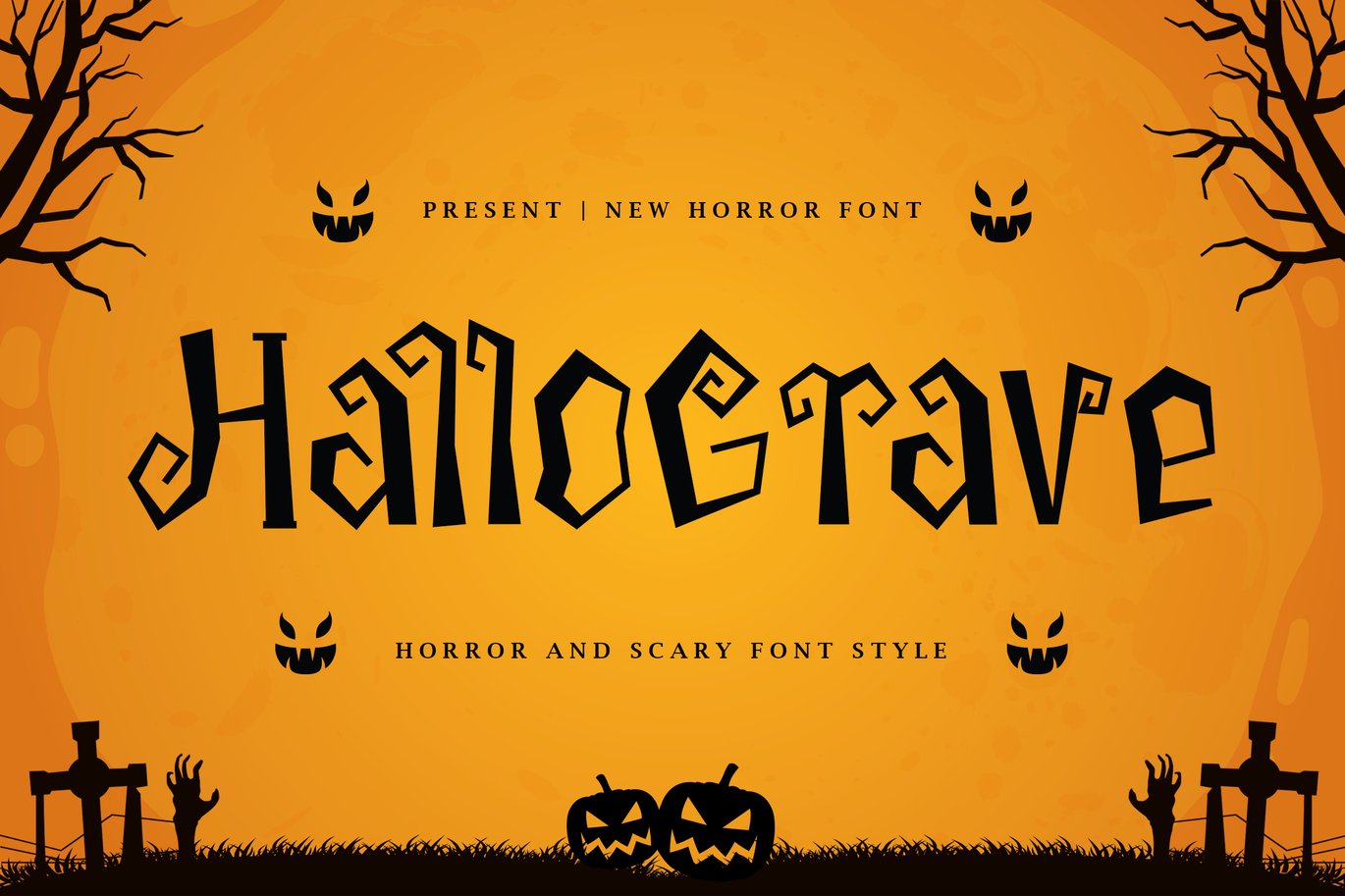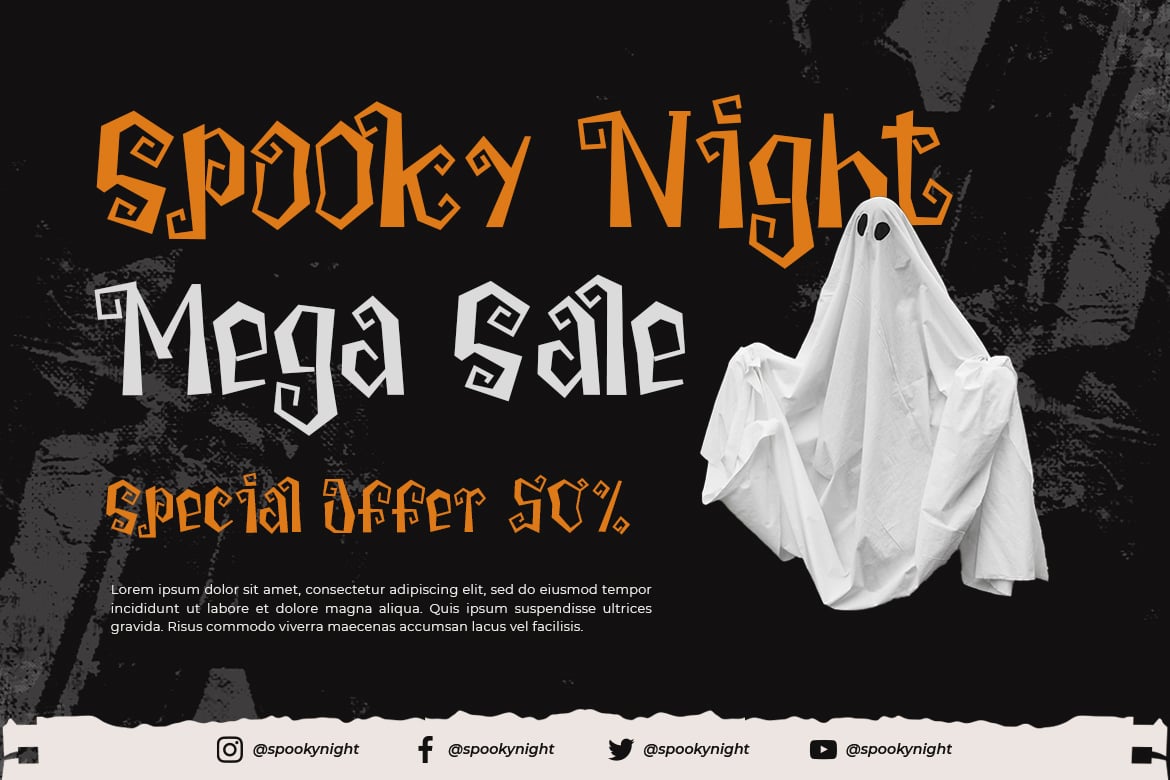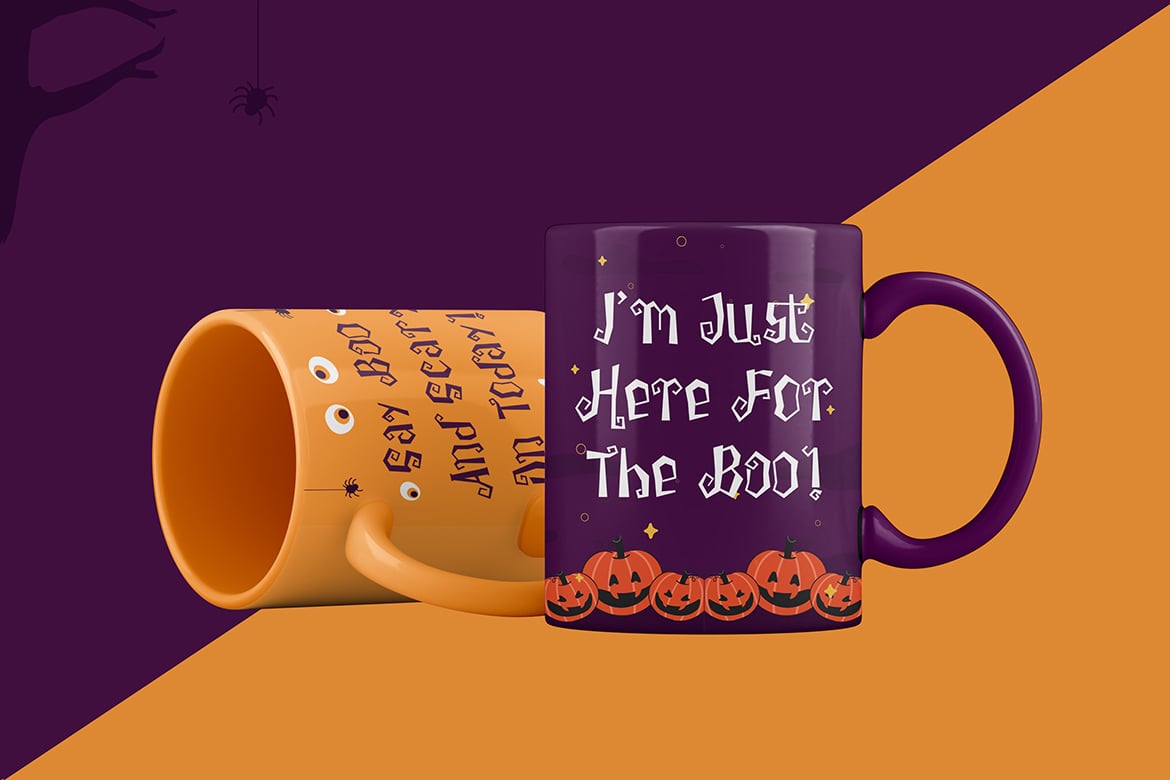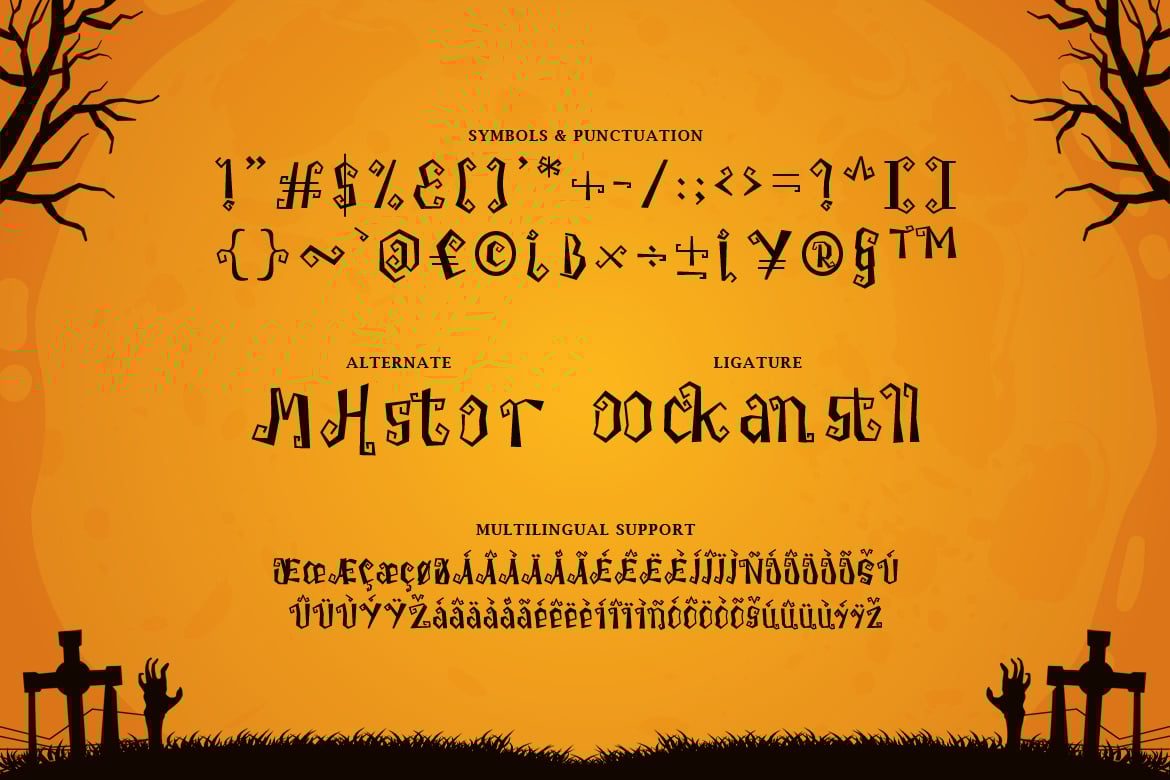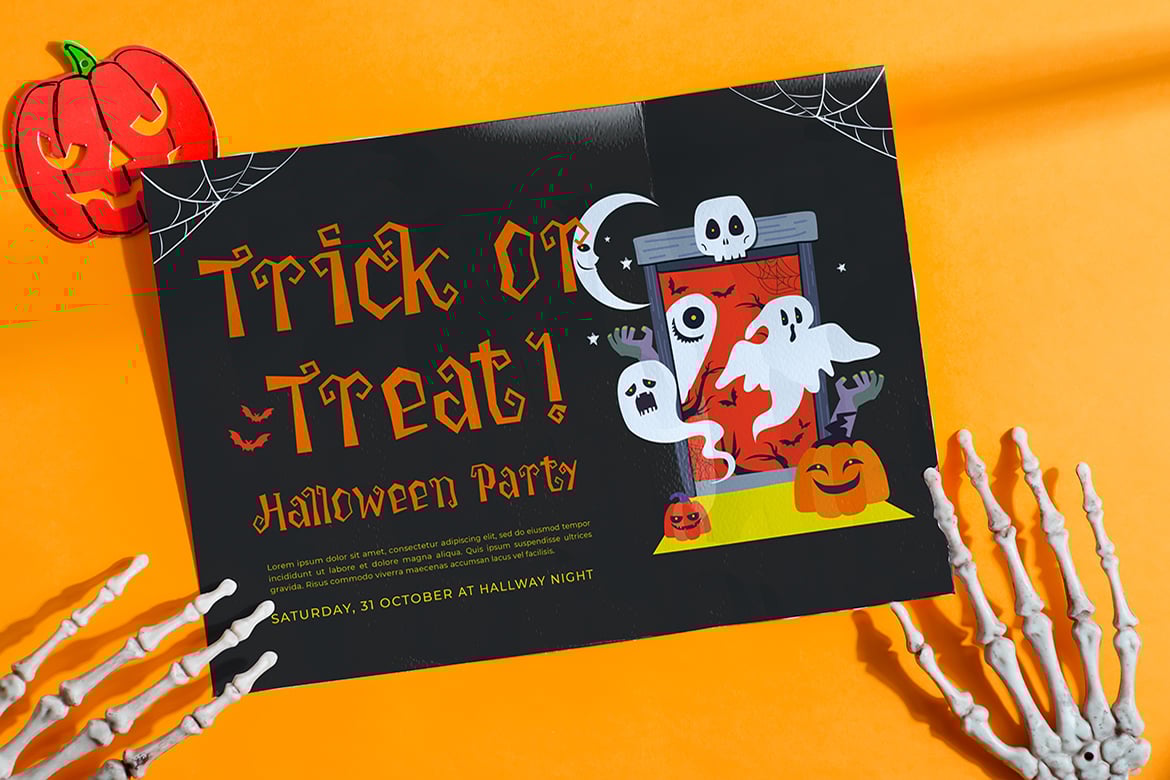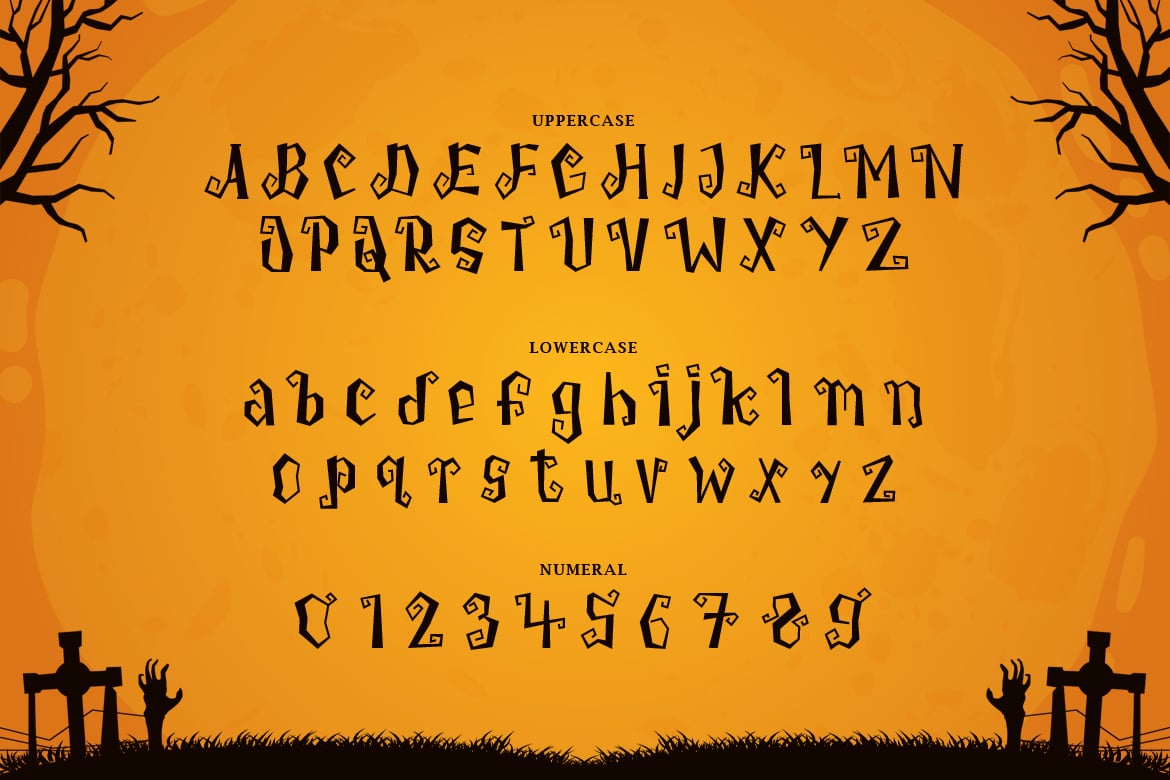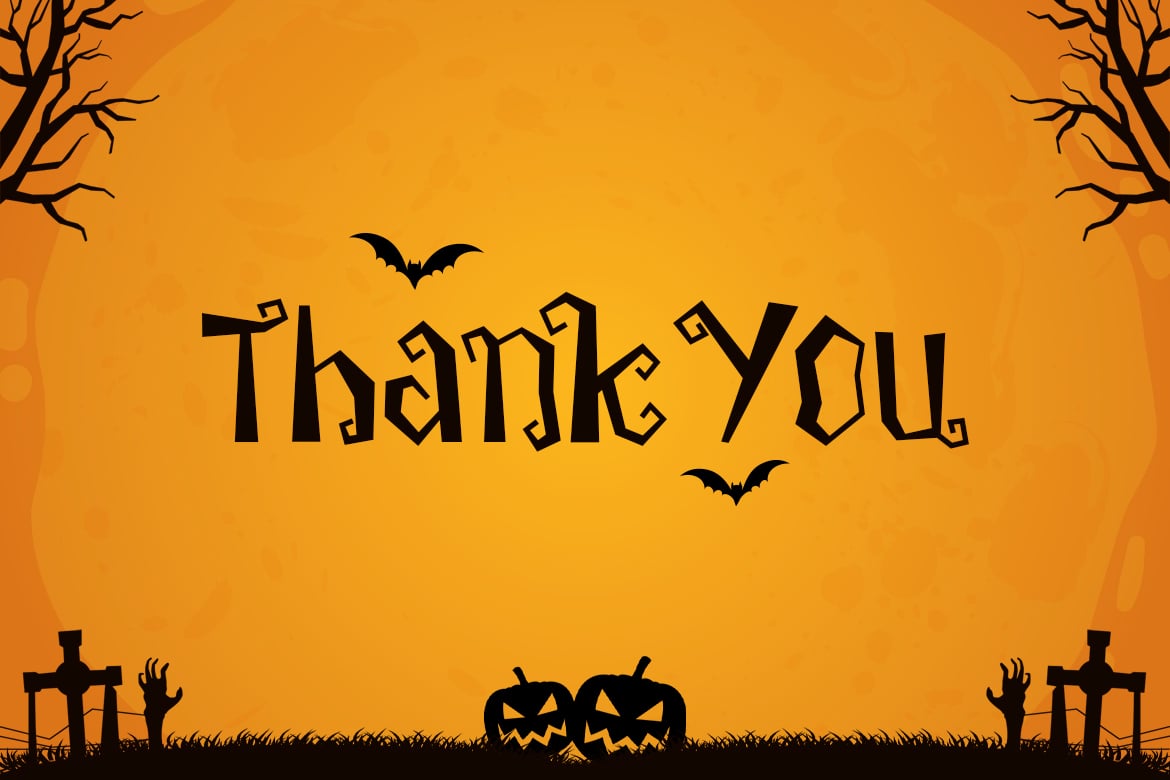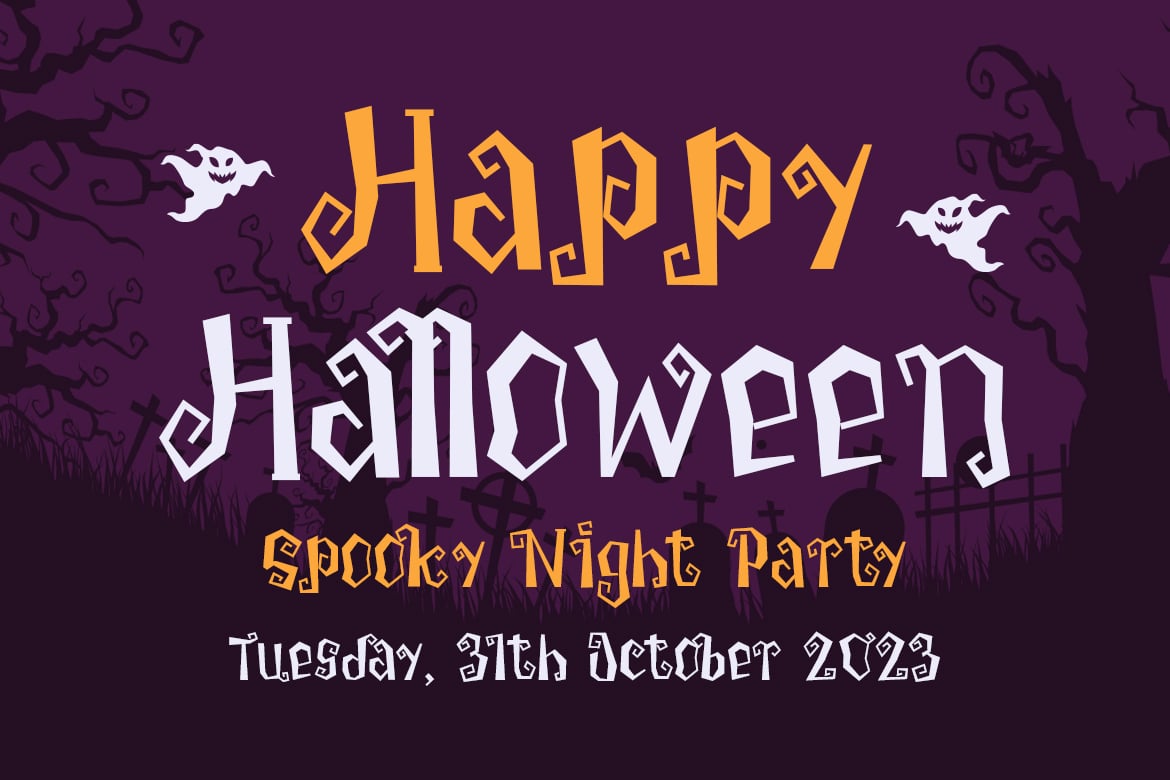
Hallograve – Horror And Scary Font
Hallograve is a dark, horror looking display font. Add it to your scary crafts, horror movie posters, t-shirts and anything else that requires a spectacular look.